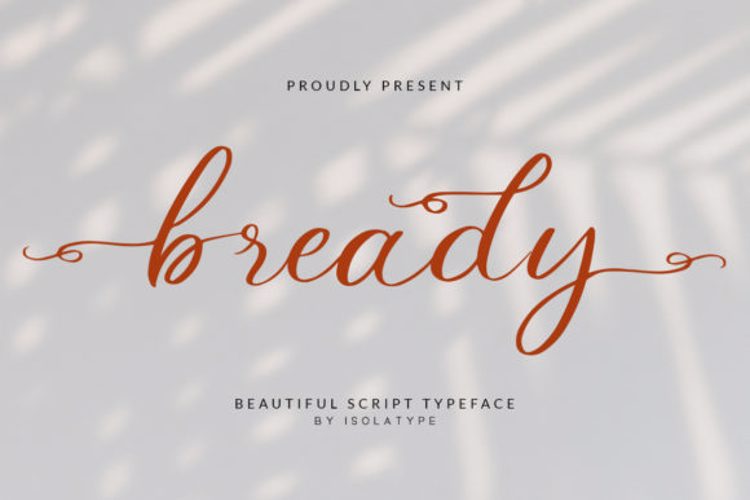
Bready Font
About Bready Font
Bready feels equally gorgeous and delicate. It looks beautiful on wedding invitations, thank you cards, quotes, greeting cards, logos, business cards and every other design which needs a customized touch.